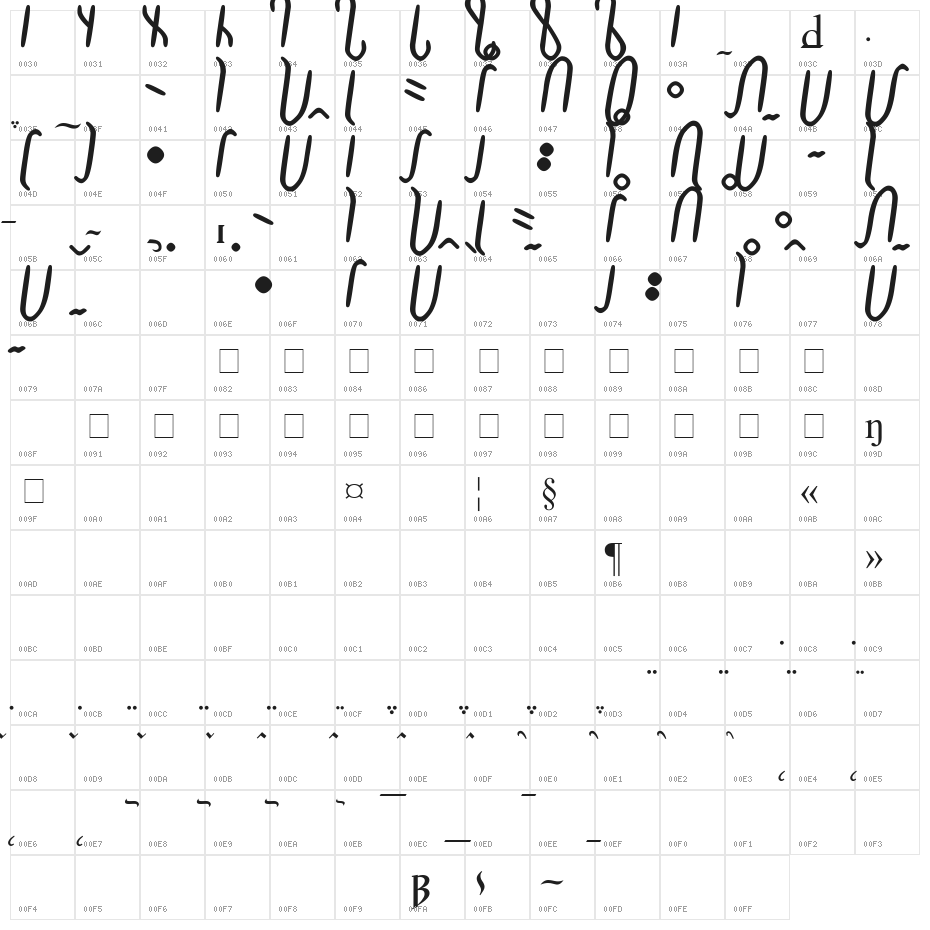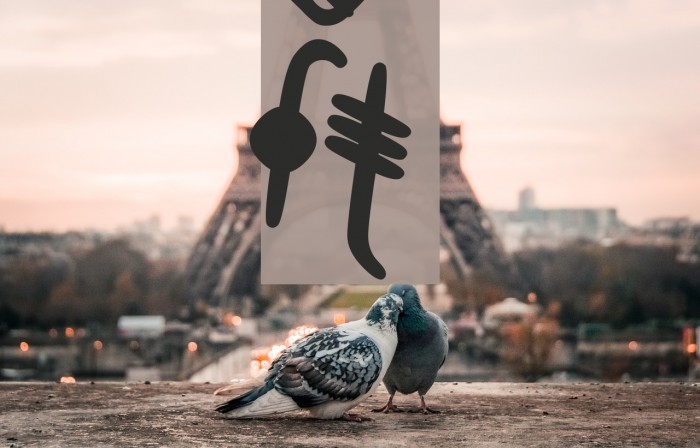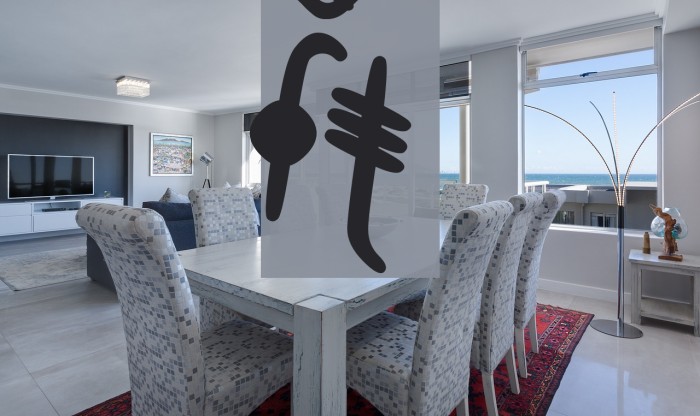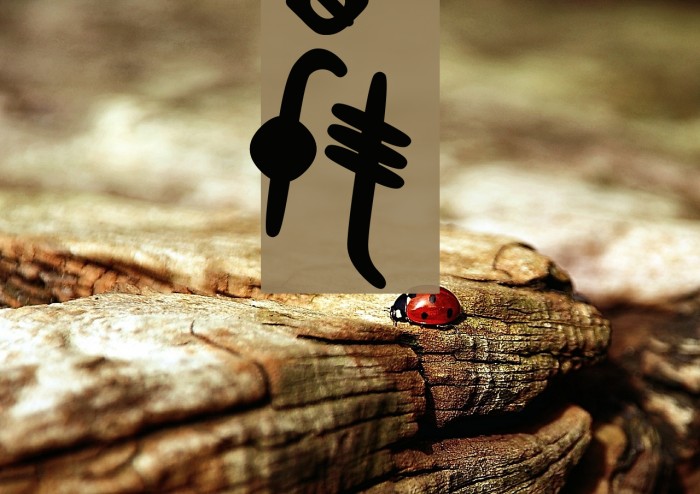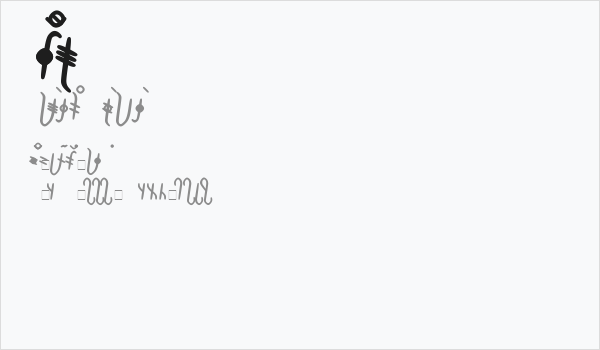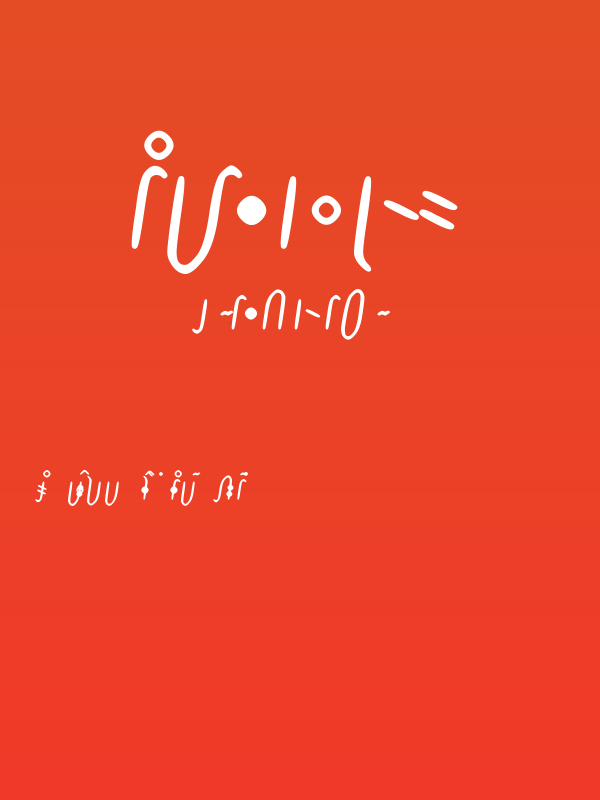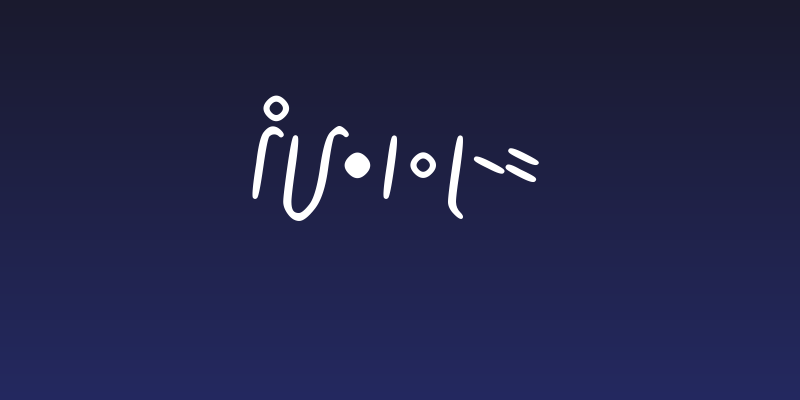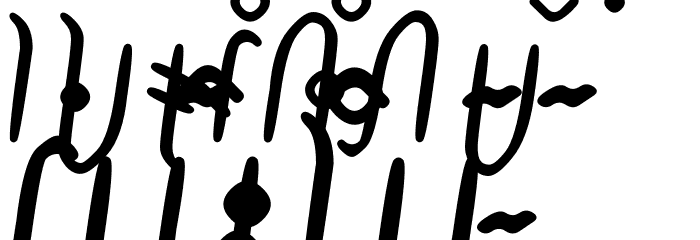
Floridae Font
Floridae Description
This font features a highly decorative and abstract style, characterized by its unique and artistic letterforms. Each character is crafted with a series of loops, curves, and dots, creating a whimsical and playful appearance. The strokes are bold and consistent in weight, giving the font a strong visual presence. The characters are interconnected with fluid lines, enhancing the artistic and freeform nature of the design. This font is not suitable for body text due to its intricate details but can be an excellent choice for creative projects that require a distinctive and eye-catching typeface.
| Proposed Projects | Ideal for artistic posters, creative branding, unique invitations, and decorative headings. |